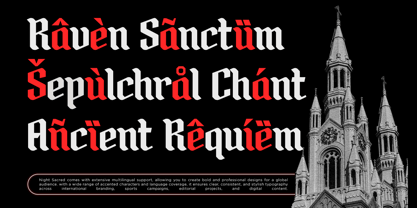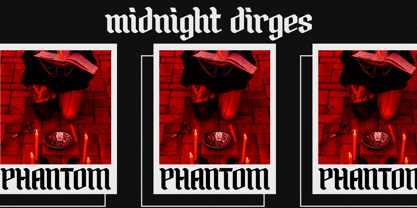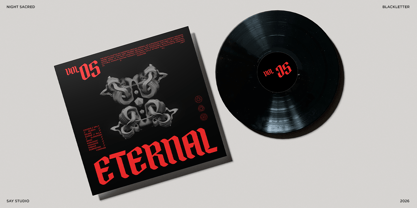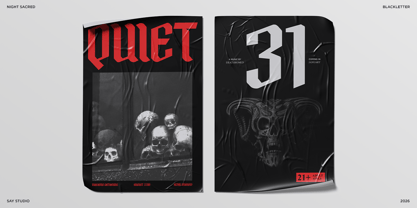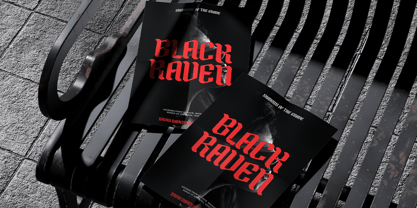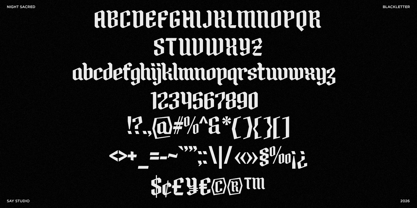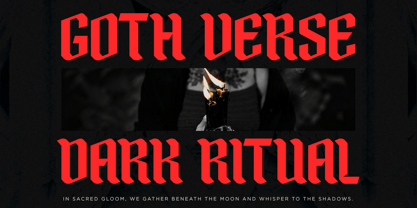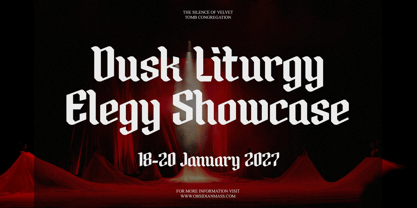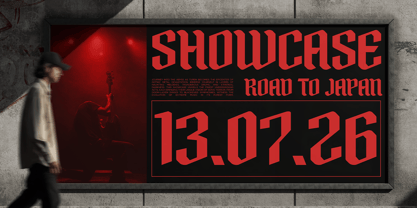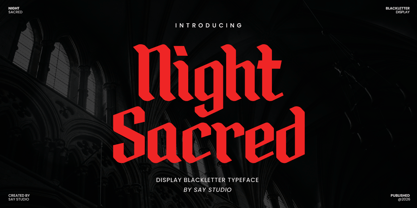
Night Sacred
La famille de polices Night Sacred a été conçue par Mussyayin et publiée par Say Studio. Night Sacred contient 2 styles et options de package familial. En savoir plus sur cette famille
Night Sacred is a bold Gothic Blackletter font inspired by medieval typography, dark aesthetics, and traditional blackletter lettering. Its dramatic and distinctive letterforms create a powerful visual presence, making it perfect for designs that demand a mysterious, rebellious, and timeless character.
Perfect for album covers, band logos, metal music artwork, concert posters, tattoo designs, streetwear, fashion branding, editorial layouts, packaging, merchandise, and dark-themed visual identities. Night Sacred works especially well for headlines, logos, titles, and large display compositions where strong typography needs to command attention.
Whether you're creating a heavy metal identity, gothic fashion campaign, medieval-inspired artwork, horror poster, alternative branding, or underground music project, Night Sacred brings an intense and authentic blackletter character to your design.
• Regular and Italic
• Uppercase and Lowercase
• Number, Symbol, and Punctuation
• Multilingual Support